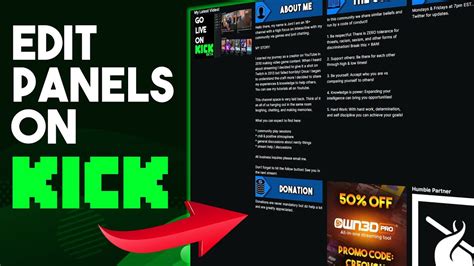
Kick Streaming Font
Kick Streaming Font - As in the streaming platform. Typography font based on the kick logo. Total of 98 characters, both upper and lower case, in a seamless font package. Kick font is now the official font used by kick streaming and has been implemented to their community website for all. Kick font is now the official font used by kick streaming and has been implemented to their community website for all to use. The unofficial logo font of kick. Added numbers update july 31 2023: Kick is the most rewarding gaming and livestreaming platform.
Kick font is now the official font used by kick streaming and has been implemented to their community website for all to use. The unofficial logo font of kick. Typography font based on the kick logo. Kick is the most rewarding gaming and livestreaming platform. As in the streaming platform. Total of 98 characters, both upper and lower case, in a seamless font package. Added numbers update july 31 2023: Kick font is now the official font used by kick streaming and has been implemented to their community website for all.
Total of 98 characters, both upper and lower case, in a seamless font package. Added numbers update july 31 2023: As in the streaming platform. Kick is the most rewarding gaming and livestreaming platform. The unofficial logo font of kick. Kick font is now the official font used by kick streaming and has been implemented to their community website for all. Typography font based on the kick logo. Kick font is now the official font used by kick streaming and has been implemented to their community website for all to use.
Kick font is now the official font used by kick streaming and has been implemented to their community website for all. Kick font is now the official font used by kick streaming and has been implemented to their community website for all to use. Kick is the most rewarding gaming and livestreaming platform. The unofficial logo font of kick. As.
The unofficial logo font of kick. Kick font is now the official font used by kick streaming and has been implemented to their community website for all. Kick is the most rewarding gaming and livestreaming platform. Typography font based on the kick logo. Added numbers update july 31 2023:
Kick font is now the official font used by kick streaming and has been implemented to their community website for all to use. Kick is the most rewarding gaming and livestreaming platform. Added numbers update july 31 2023: Kick font is now the official font used by kick streaming and has been implemented to their community website for all. As.
Total of 98 characters, both upper and lower case, in a seamless font package. Kick font is now the official font used by kick streaming and has been implemented to their community website for all. Typography font based on the kick logo. Kick font is now the official font used by kick streaming and has been implemented to their community.
Added numbers update july 31 2023: Kick font is now the official font used by kick streaming and has been implemented to their community website for all. Total of 98 characters, both upper and lower case, in a seamless font package. Kick is the most rewarding gaming and livestreaming platform. As in the streaming platform.
Kick is the most rewarding gaming and livestreaming platform. Added numbers update july 31 2023: Kick font is now the official font used by kick streaming and has been implemented to their community website for all to use. Total of 98 characters, both upper and lower case, in a seamless font package. Typography font based on the kick logo.
Total of 98 characters, both upper and lower case, in a seamless font package. As in the streaming platform. Typography font based on the kick logo. Kick font is now the official font used by kick streaming and has been implemented to their community website for all to use. Kick is the most rewarding gaming and livestreaming platform.
Kick font is now the official font used by kick streaming and has been implemented to their community website for all. Typography font based on the kick logo. Added numbers update july 31 2023: Kick font is now the official font used by kick streaming and has been implemented to their community website for all to use. Total of 98.
The unofficial logo font of kick. Typography font based on the kick logo. As in the streaming platform. Added numbers update july 31 2023: Total of 98 characters, both upper and lower case, in a seamless font package.
Kick Font Is Now The Official Font Used By Kick Streaming And Has Been Implemented To Their Community Website For All.
Added numbers update july 31 2023: Total of 98 characters, both upper and lower case, in a seamless font package. As in the streaming platform. The unofficial logo font of kick.
Typography font based on the kick logo. Kick font is now the official font used by kick streaming and has been implemented to their community website for all to use.